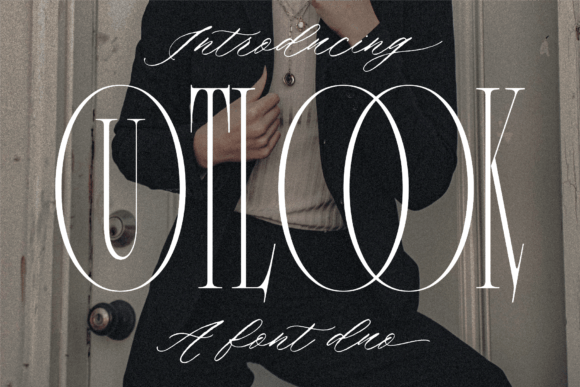
Prepare yourself to step into the world of typographic brilliance with Outlook Font Duo, a striking combination of serif and script fonts that will revolutionize your digital designs. Immerse yourself in the charm of tradition while embracing the allure of modern elegance.
Outlook's serif font exudes sophistication and timelessness, captivating your audience with its classic beauty. Its meticulously crafted curves and delicate details breathe life into every word, making your designs radiate with an aura of distinction.
Complementing the serif font is its enchanting script counterpart, a symphony of flowing lines and graceful swashes that dances across your designs with an air of effortless elegance. Watch as your words transform into works of art, captivating your audience with their captivating charm.
Together, these two fonts form a dynamic duo that harmonizes seamlessly, creating endless possibilities for creative expression. Elevate your wedding invitations to new heights of romance, let your logos shine with a touch of refined elegance, or craft social media posts that exude sophistication and style.
With Outlook Font Duo, you'll discover a world of typographic possibilities, effortlessly transforming your designs into captivating masterpieces that leave a lasting impression. Seize this opportunity to unlock the full potential of your creativity and make your designs stand out from the ordinary. Embrace the beauty of Outlook Font Duo today!